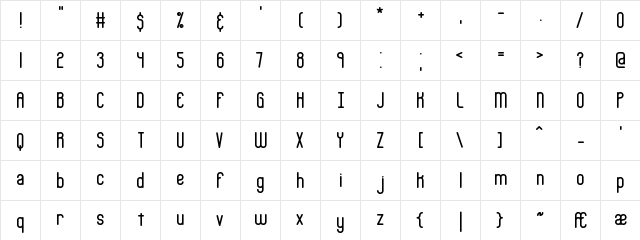
Bobcaygeon Plain (BRK) Normal
Design Context for Bobcaygeon Plain (BRK) Typeface
Bobcaygeon Plain (BRK) is a composed and adaptable typeface that performs quietly and consistently across a wide range of design contexts.